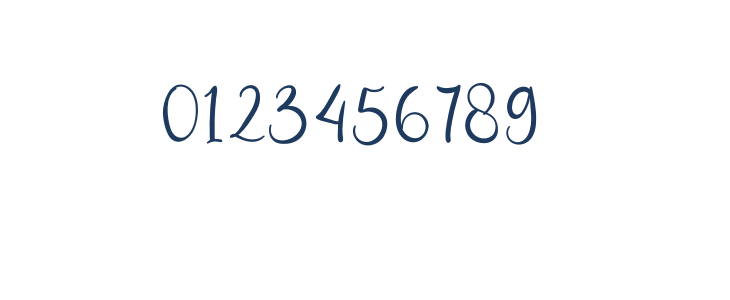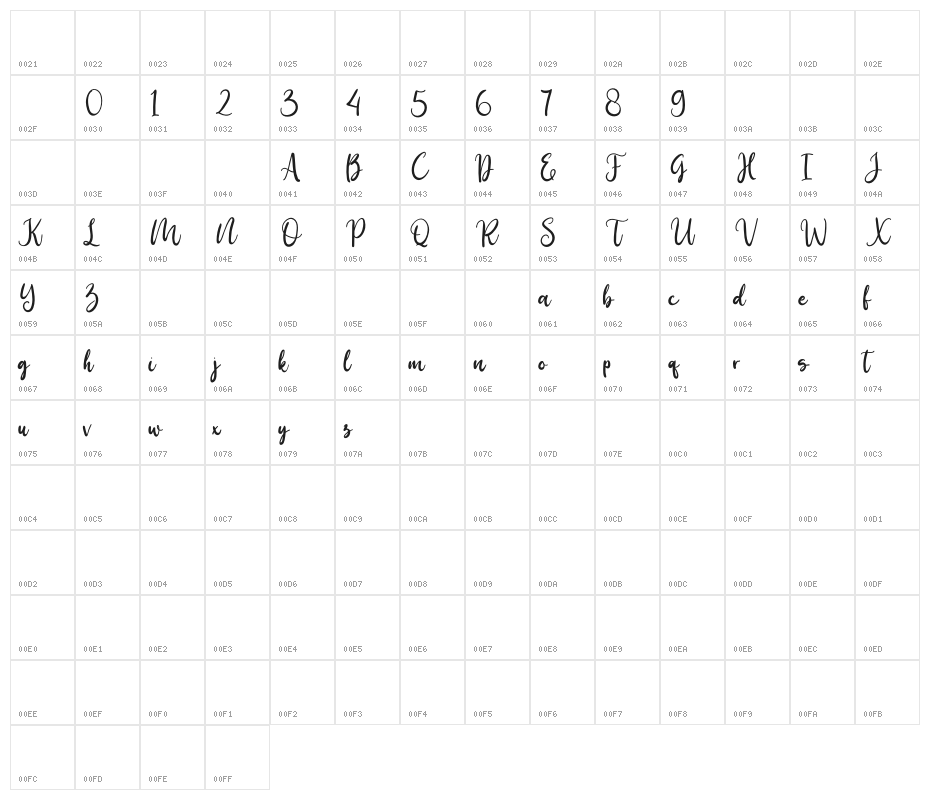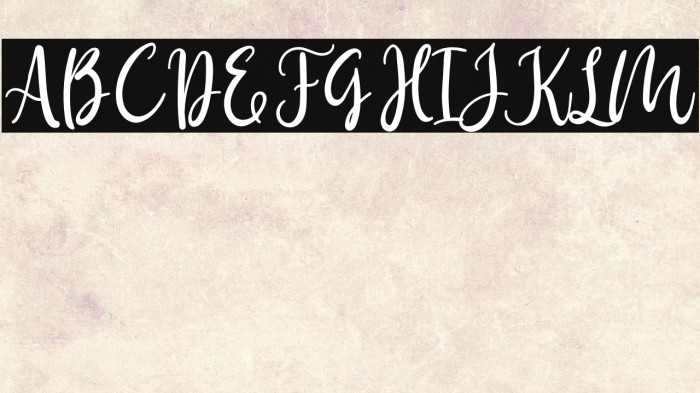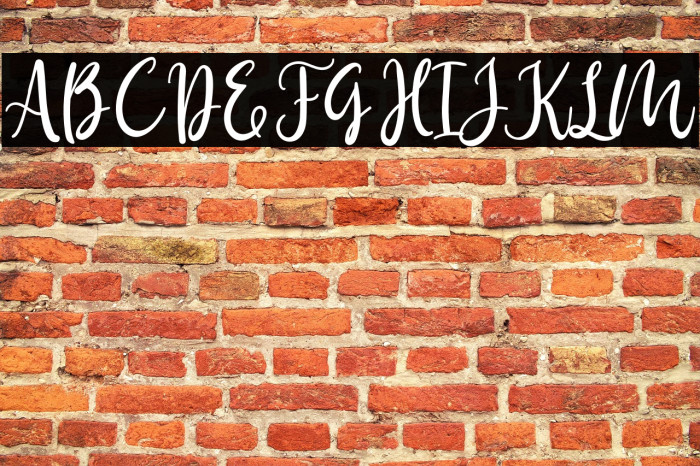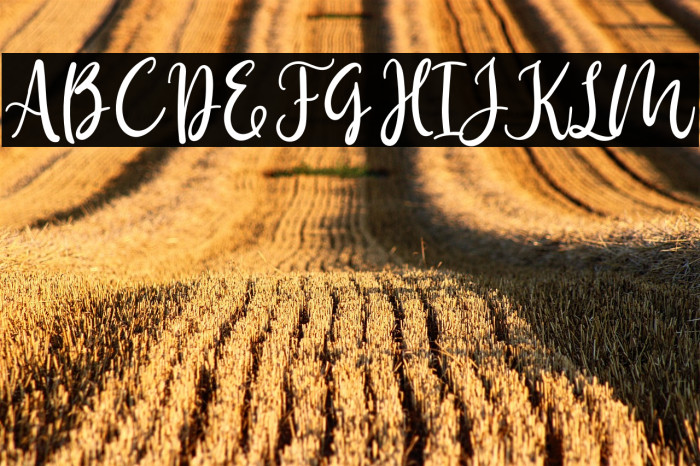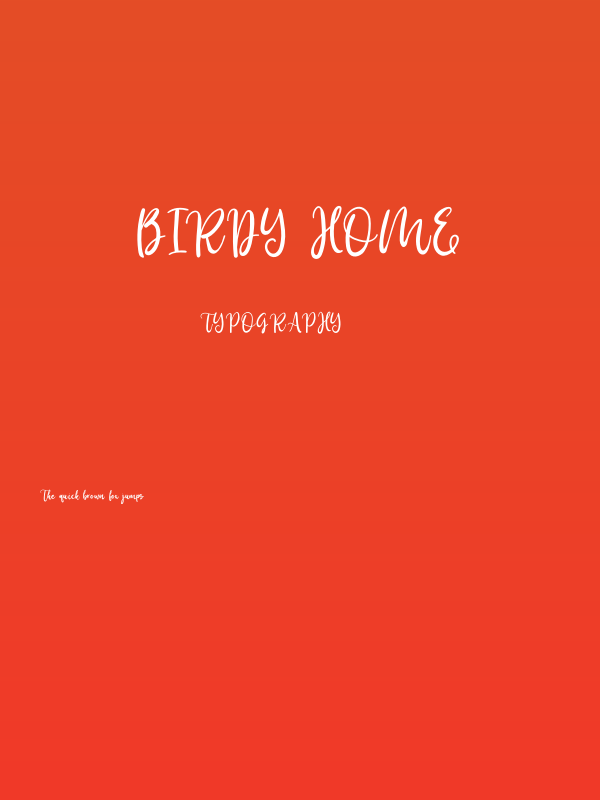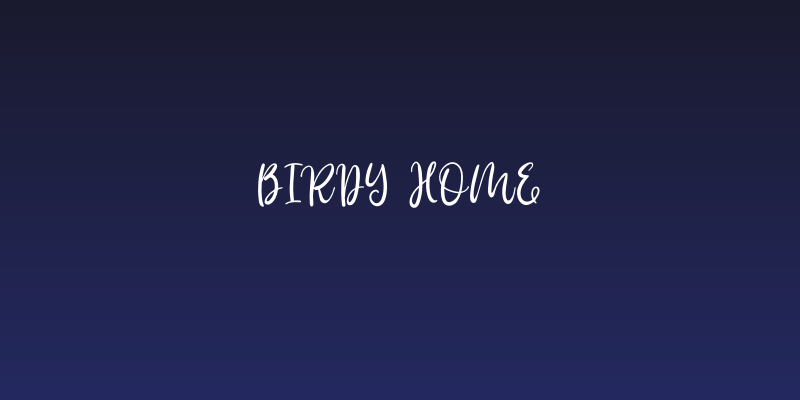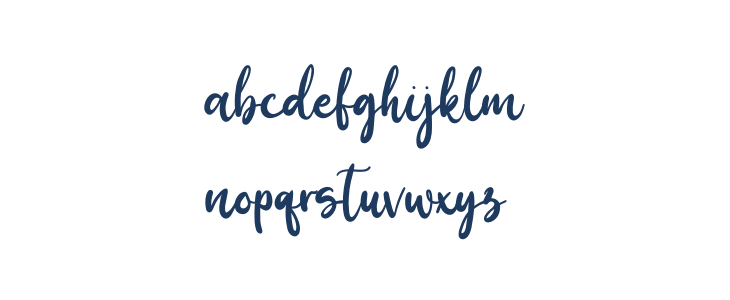
Birdy Home Font
Birdy Home Description
This font features a playful and elegant script style, characterized by its flowing, cursive letterforms. The uppercase letters are tall and slightly slanted, with smooth curves and a consistent stroke width that adds to its graceful appearance. The lowercase letters maintain a similar fluidity, with some letters featuring distinctive loops and swashes that enhance its decorative nature. The numerals are rounded and maintain the same whimsical style, making them cohesive with the alphabet. This font is ideal for projects that require a touch of sophistication and charm.